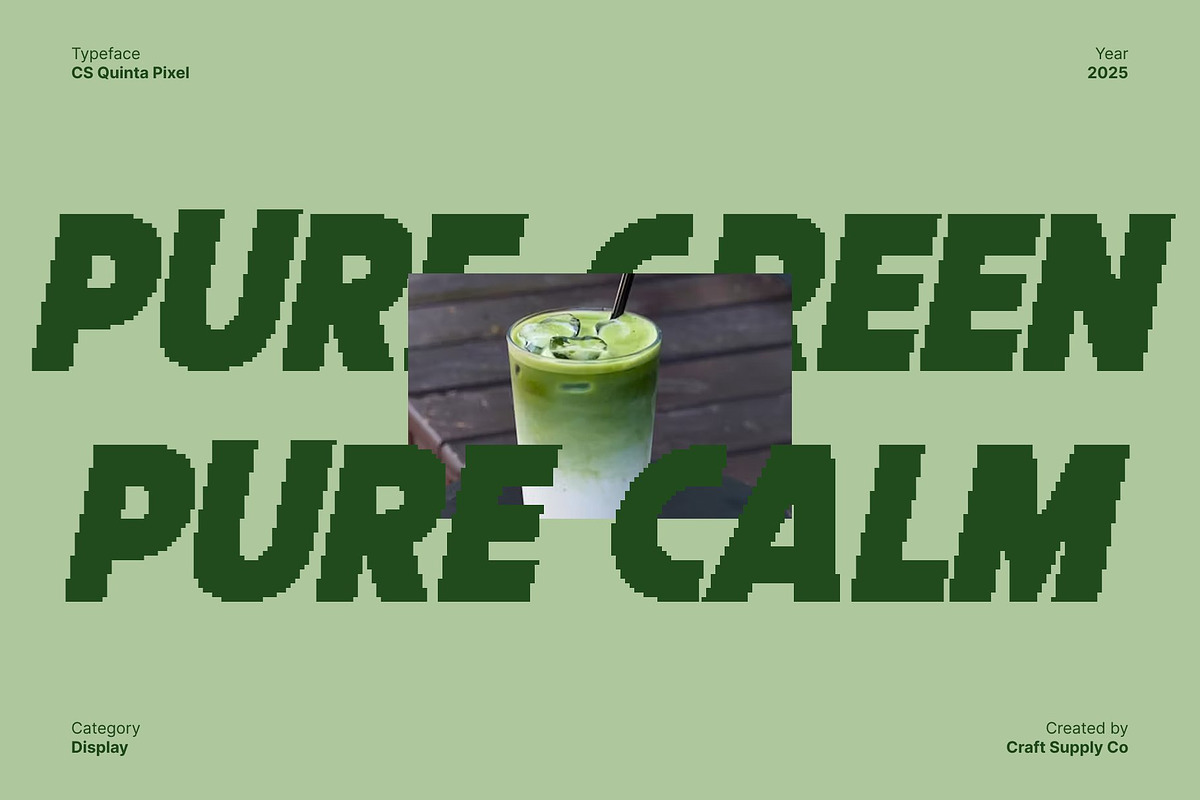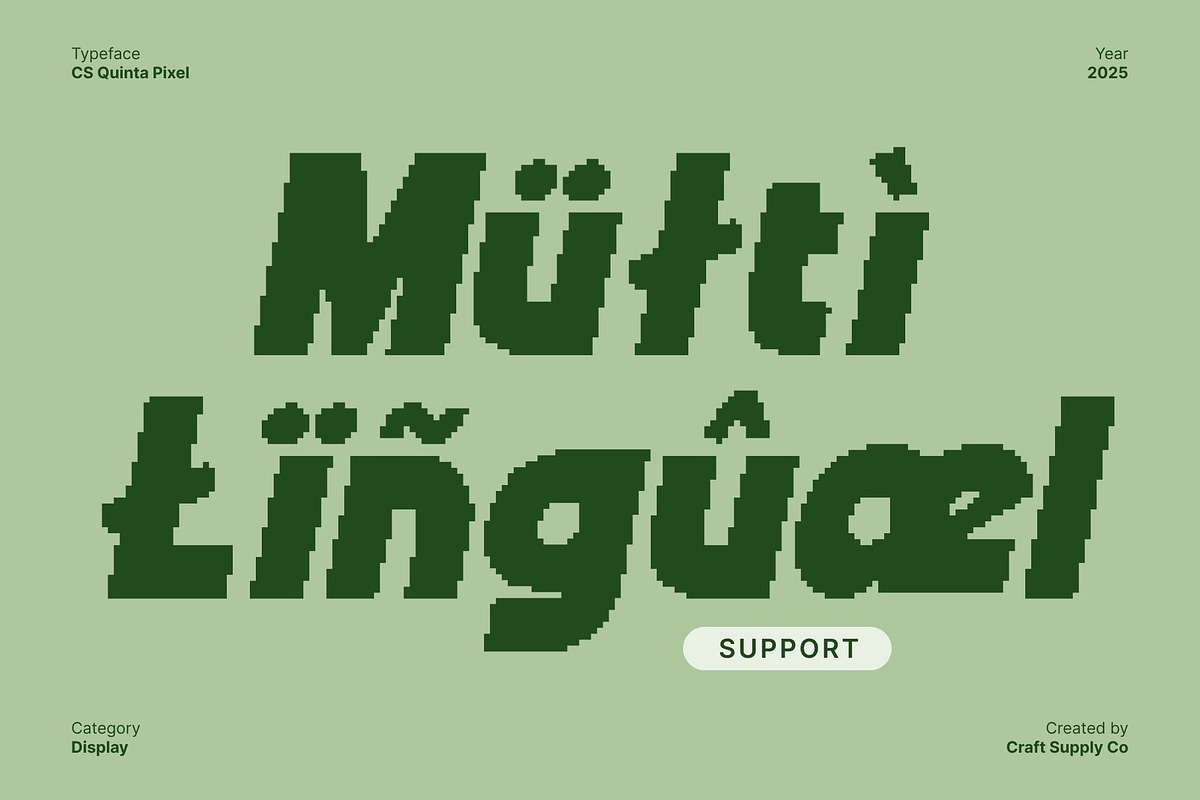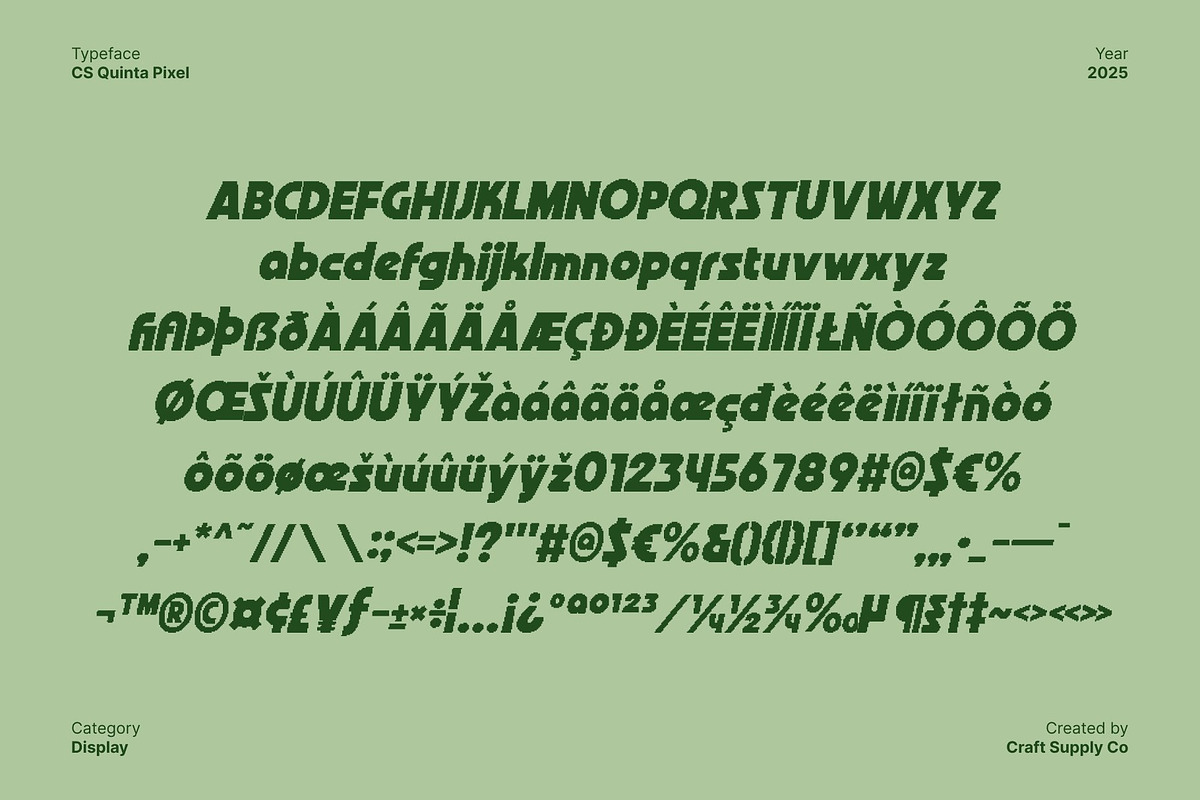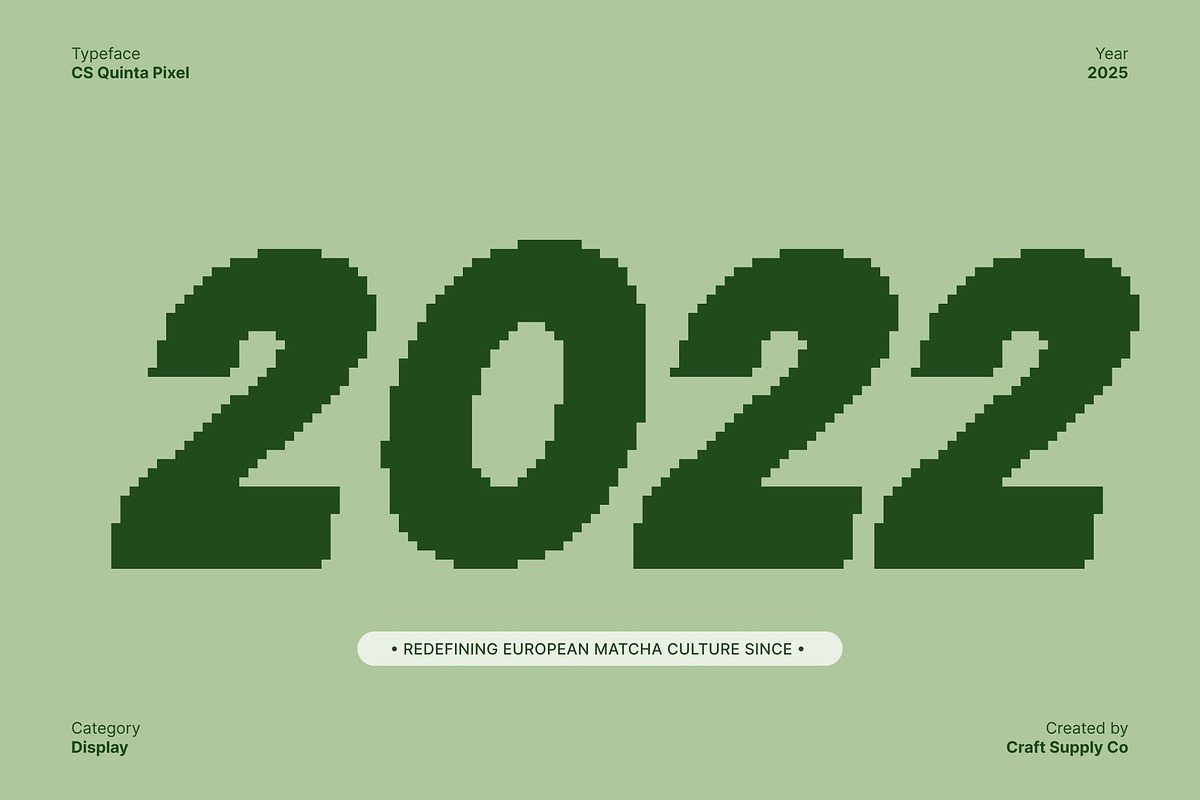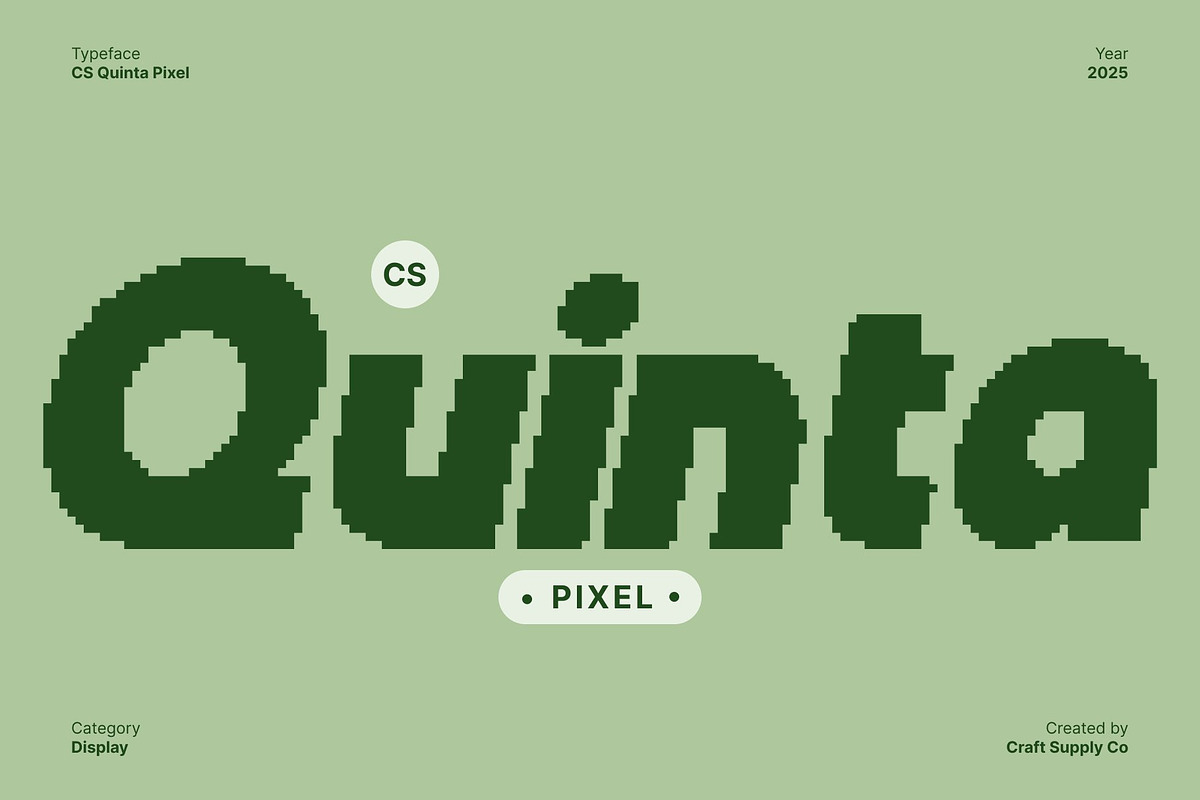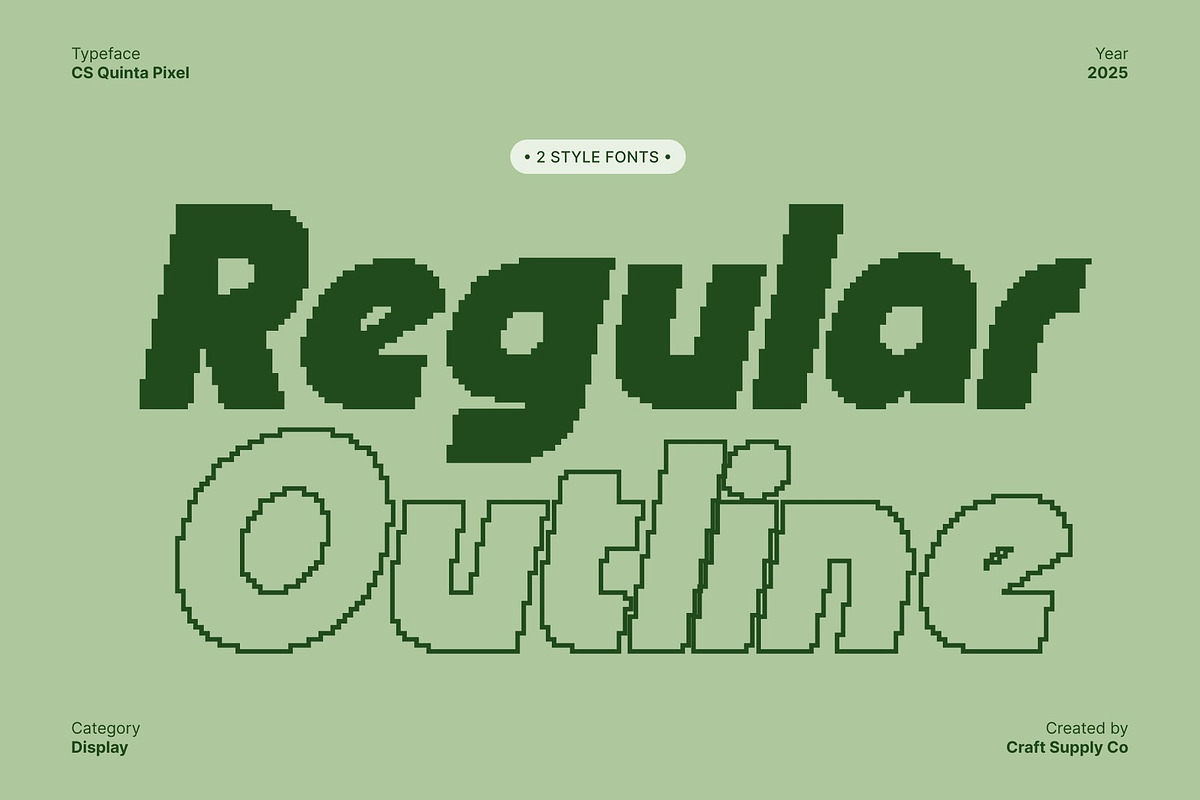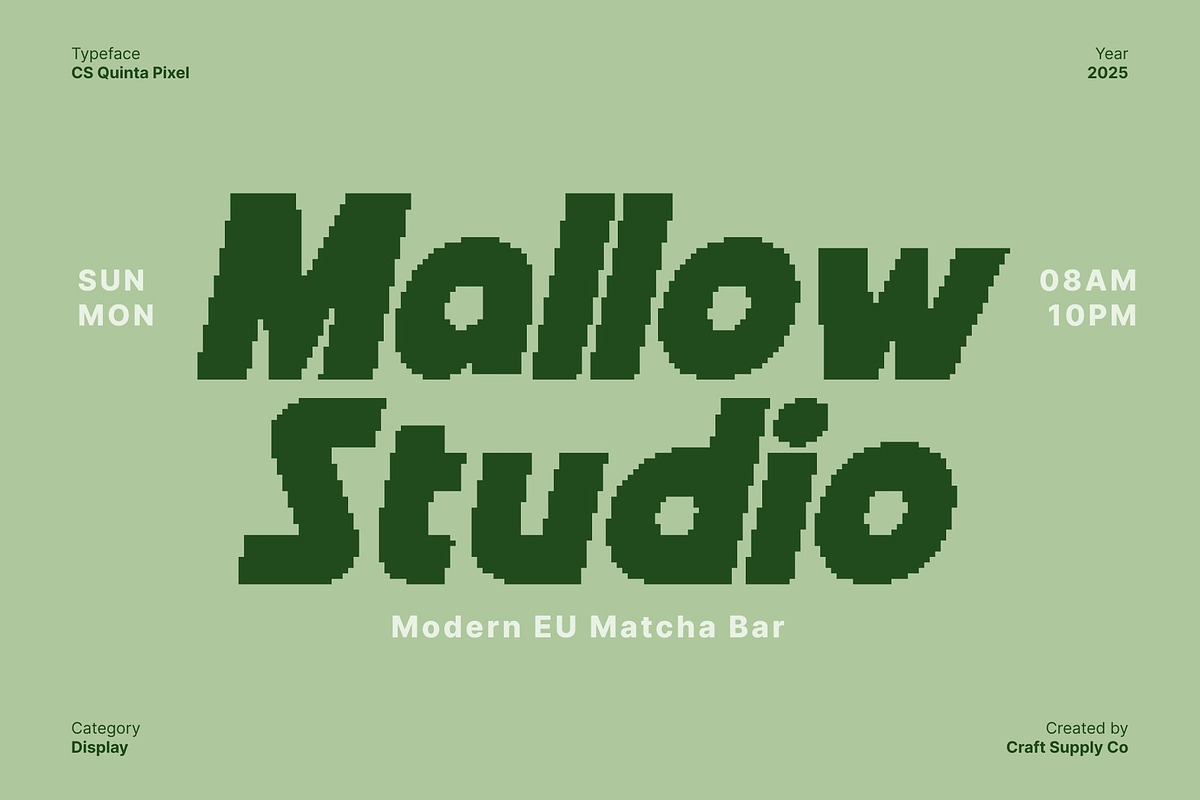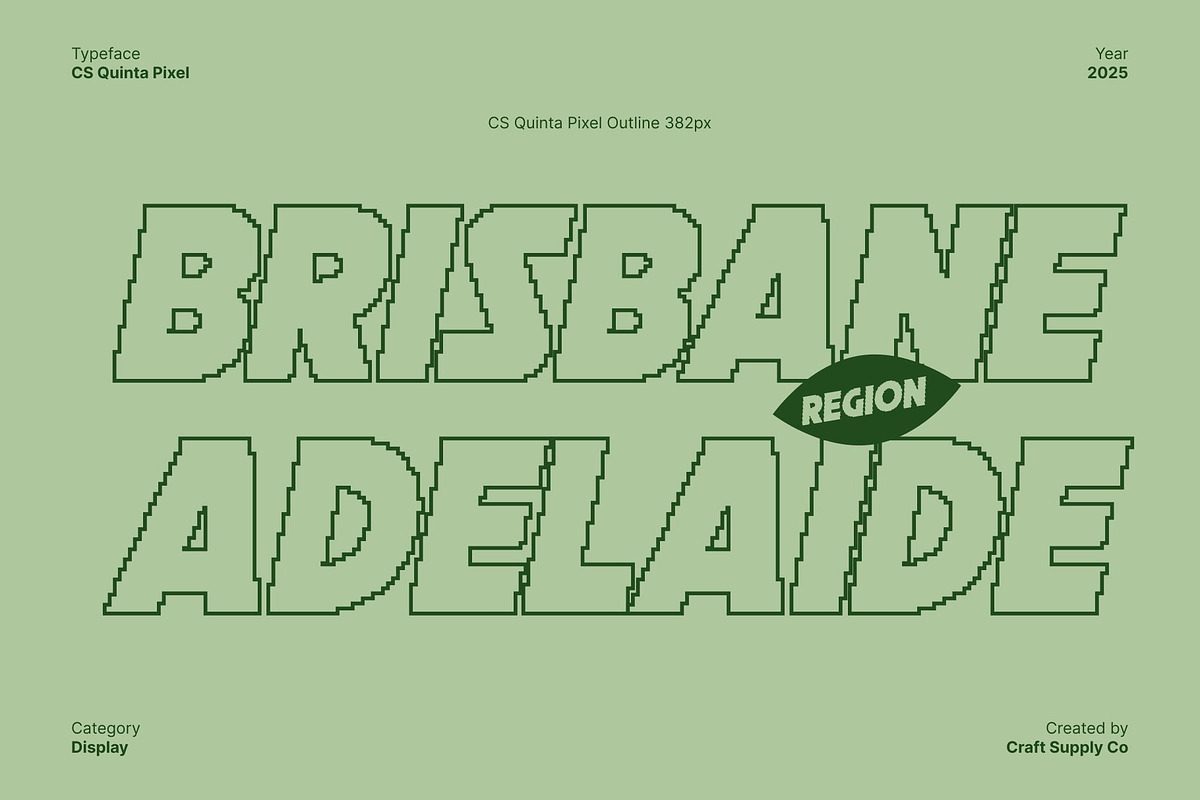
CS Quinta Pixel
CS Quinta Pixel – Bold Pixel Sans Serif with Retro Arcade Energy
Bold Shapes Inspired by 8-Bit Arcade Style This font brings a strong retro punch with its bold sans serif structure inspired by the iconic 8-bit arcade era. Each character is built with confident, blocky forms that instantly evoke nostalgic digital aesthetics.
Pixelated Texture for Modern Digital Appeal The pixelated design enhances its digital presence, blending retro charm with contemporary sharpness. delivers a clean yet distinctly pixel-based style that feels both nostalgic and updated for today’s design landscape. Its modernity shines through in its crisp structure, making it ideal for digital creatives aiming to merge old-school vibes with fresh visual energy.
Perfect for Titles, Posters, and Retro Branding Engineered for visibility, this font excels in display settings where bold impressions matter. Use it for titles, posters, signage, product branding, or retro-inspired marketing campaigns. Its strong personality and energetic pixel forms guarantee attention-grabbing impact in both print and digital environments.
Versatile and Creative for Digital-Themed Projects This font adapts seamlessly to a variety of creative uses from gaming graphics and tech-themed layouts to social media visuals and nostalgic merchandise. Whether you’re reviving the spirit of classic arcade games or building a modern digital aesthetic, this font delivers a memorable, pixel-powered presence that energizes any design.
- CS Quinta Pixel Regular
- CS Quinta Pixel Outline